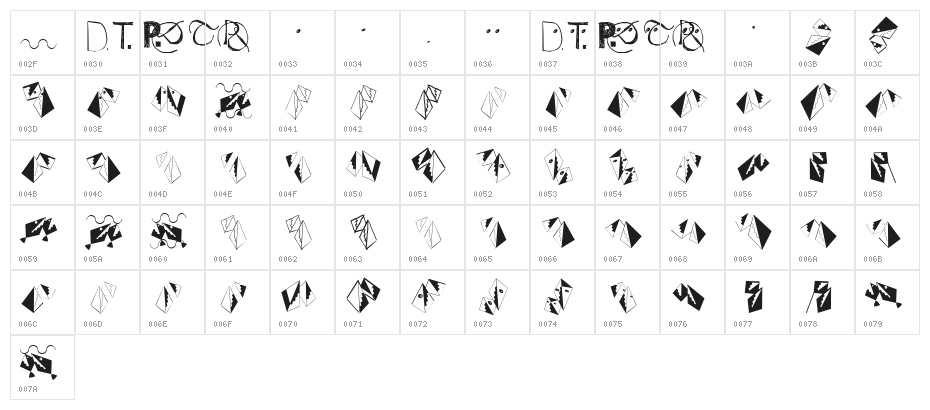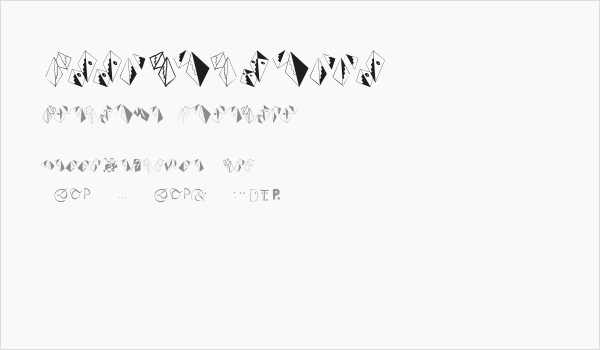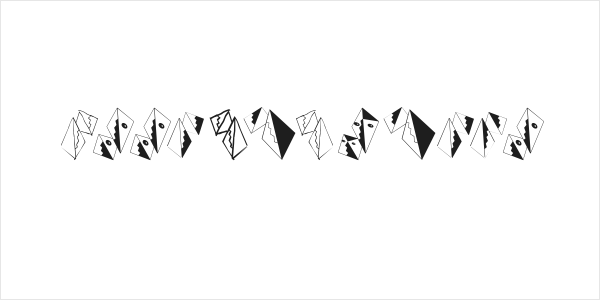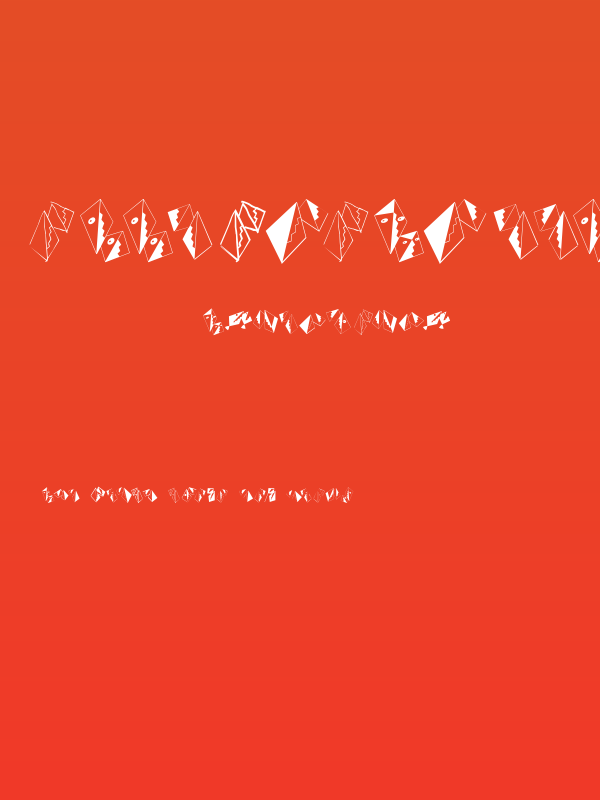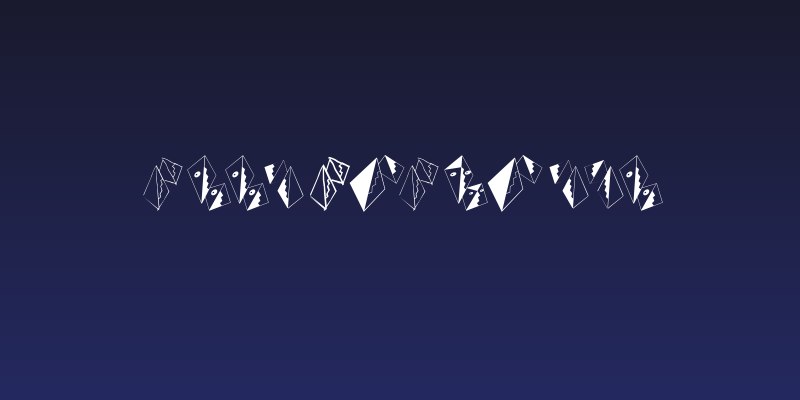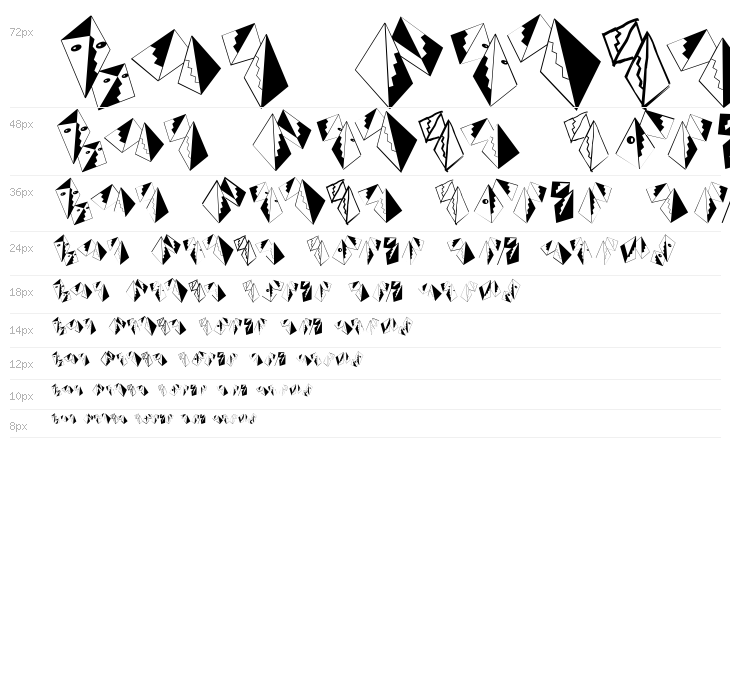
Associations Font
This font features a highly decorative and abstract design, characterized by geometric shapes and intricate patterns within each letterform. The letters are composed of angular, fragmented elements that create a sense of movement and complexity. The use of contrasting black and white sections within each character adds a dynamic visual interest, making it stand out as a unique artistic expression. The font includes uppercase and lowercase letters, numbers, and a selection of special characters, all maintaining the same abstract style. Its unconventional appearance makes it suitable for creative and artistic projects where a bold statement is desired.
| Overall Style | Modern, Artistic |
| Use Case | Logos, Posters, Art Projects |
| Proposed Projects | Ideal for artistic projects, album covers, posters, and modern art installations. |